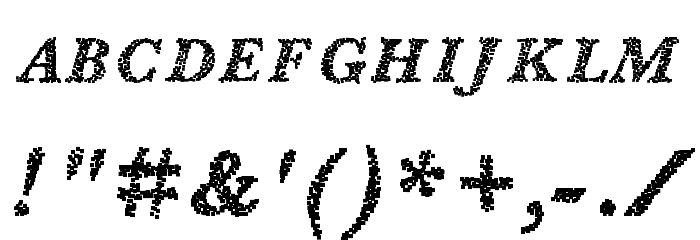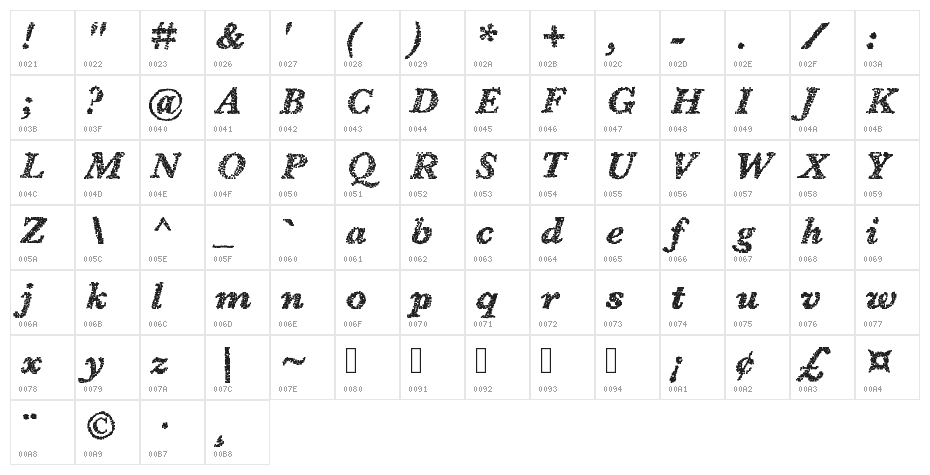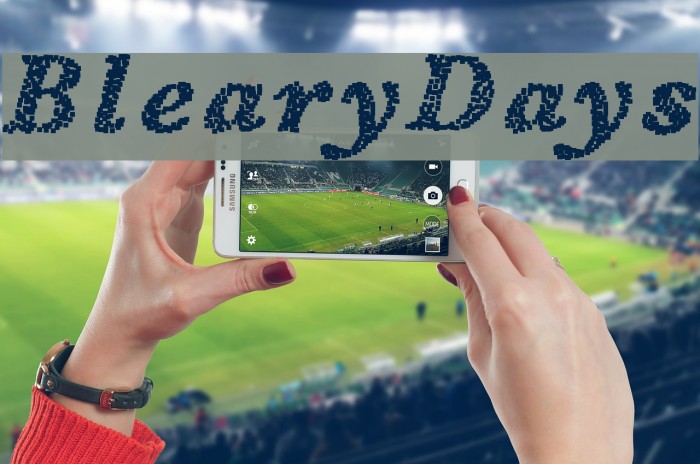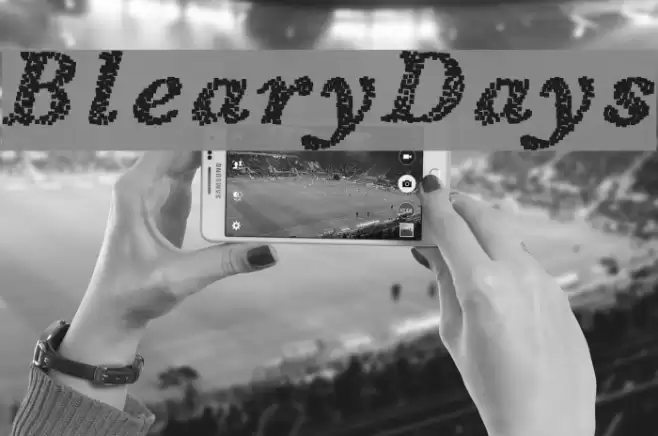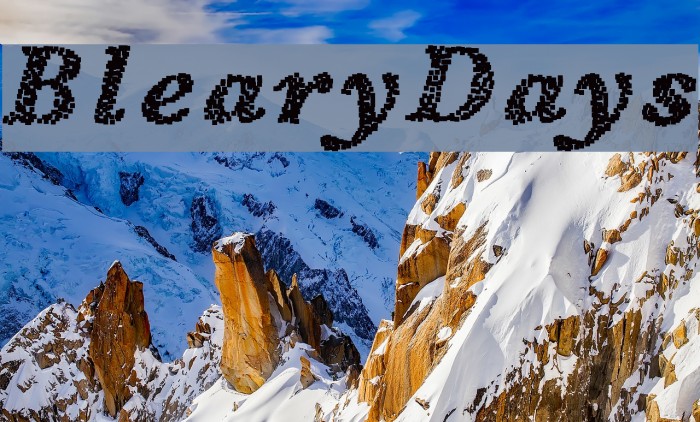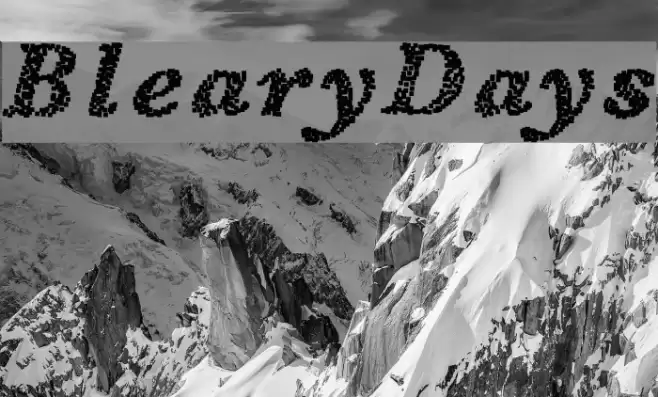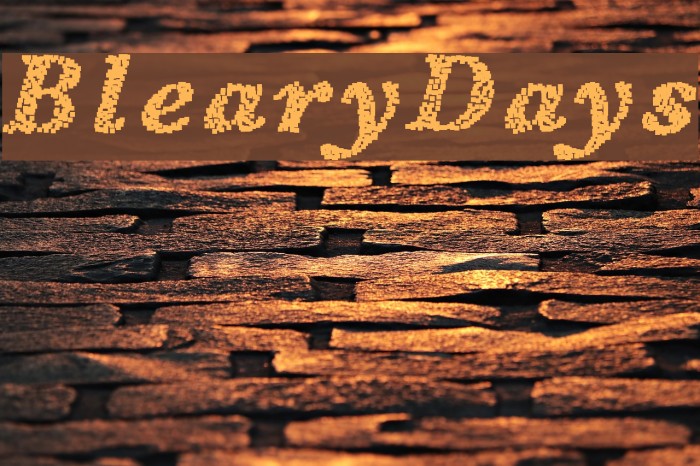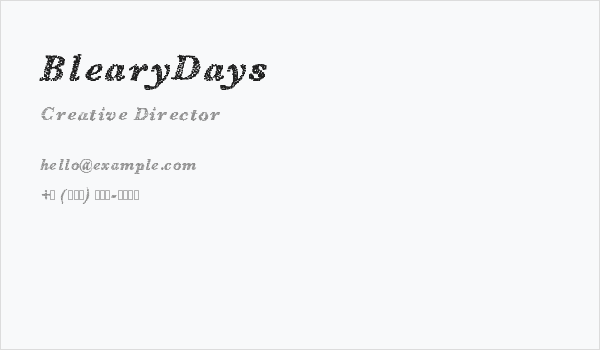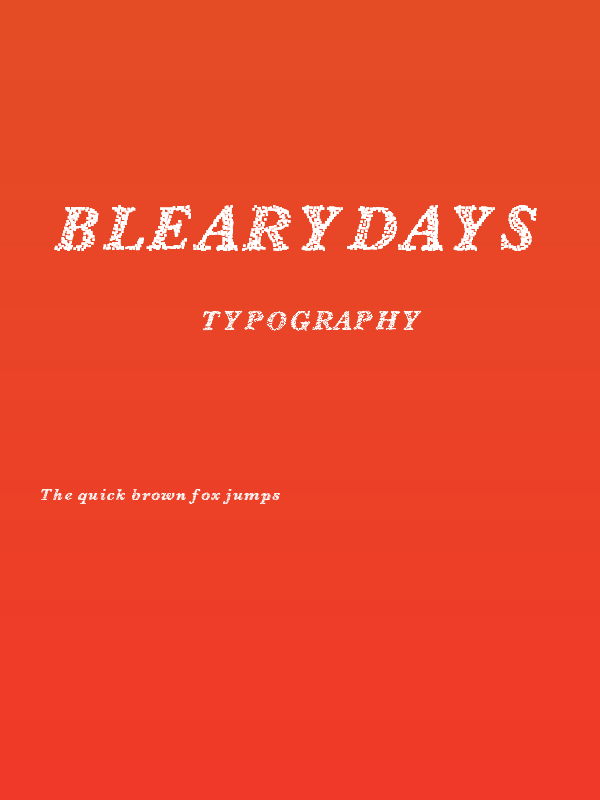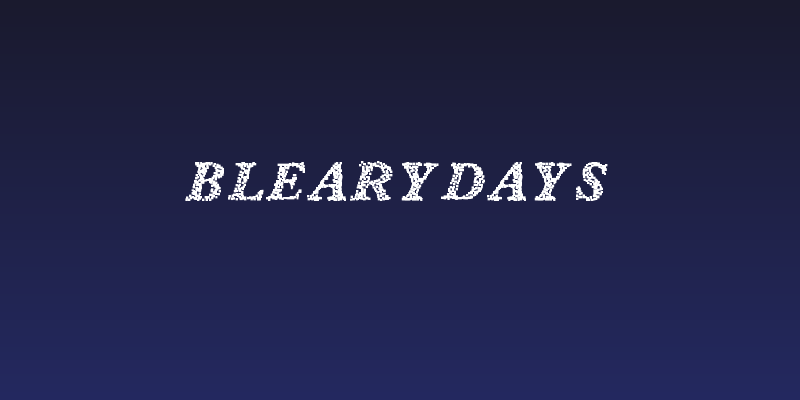
BlearyDays Font
BlearyDays Description
This font features a unique, textured appearance that gives it a vintage and slightly distressed look. The characters are italicized, adding a sense of movement and elegance. The uppercase and lowercase letters maintain a consistent style, with a moderate contrast between thick and thin strokes. The texture creates a sense of depth and character, making it stand out in any design. The special characters and numbers follow the same stylistic approach, ensuring uniformity across all elements. This font is ideal for projects that aim to convey a sense of nostalgia or artistic flair.
Overall StyleVintage
Proposed ProjectsIdeal for vintage-themed posters, artistic book covers, and creative branding projects.